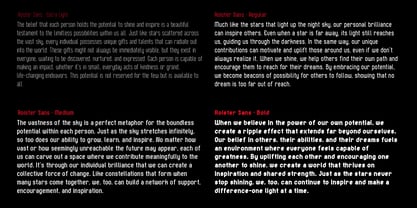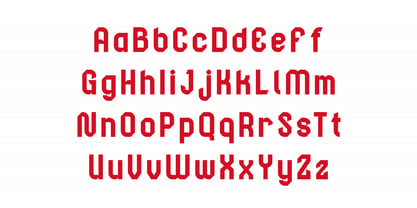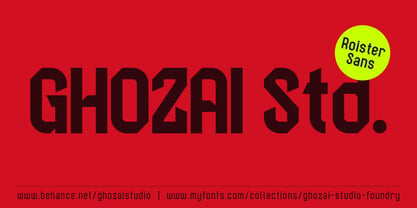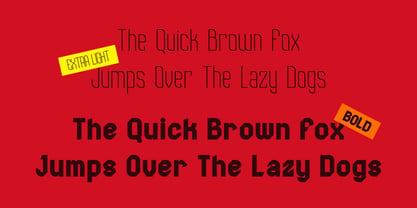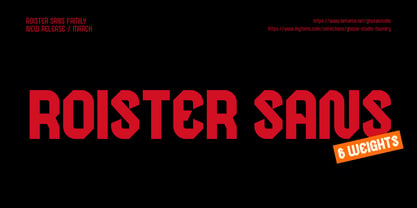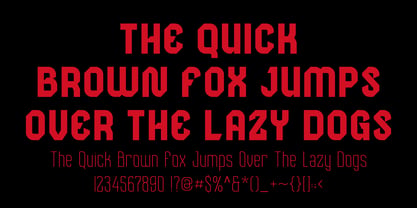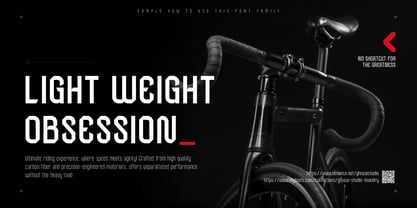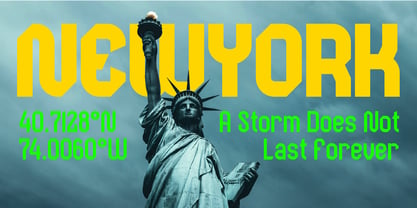
Roister Sans
por Ghozai Studio
La familia tipográfica Roister Sans fue diseñada por Manzur Ghozaali y publicada por Ghozai Studio. Roister Sans contiene 6 estilos y opciones de paquete familiar. Más información sobre esta familia
Roister Sans is a striking sans-serif font inspired by geometric shapes, crafted to deliver a polished look and a vibrant personality for all your design projects. This adaptable font shines in many applications, making it perfect for sport, action, futuristic, robotic, sci-fi-related, and mechanical themes. Roister Sans comes from extra light to bold. It gives flexibility to design your needs. Whether creating posters, headlines, logos, or branding materials, Laika Sky elevates your designs with its unique and powerful presence.
Diseñadores: Manzur Ghozaali
Fundición: Ghozai Studio
Roister Sans